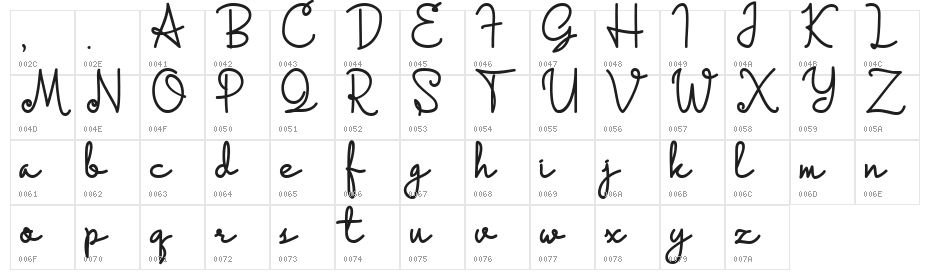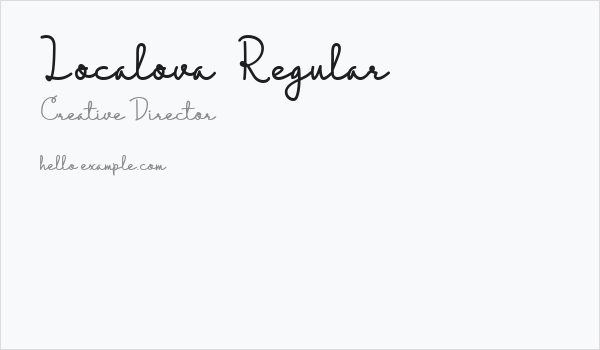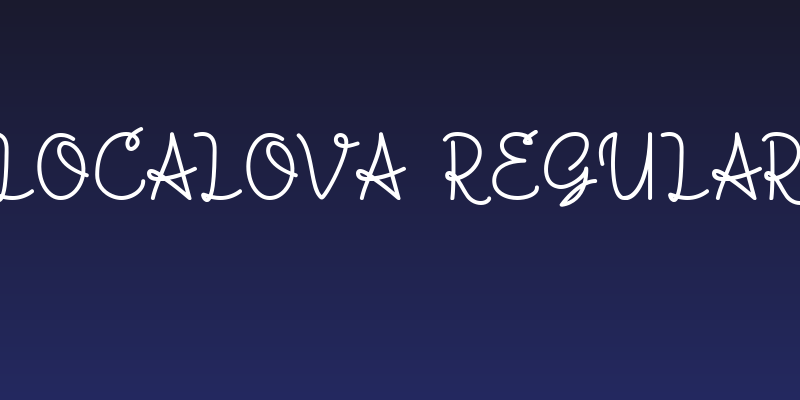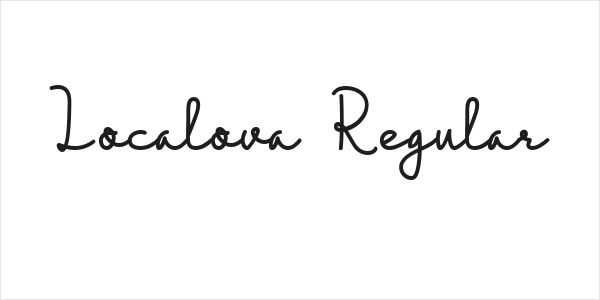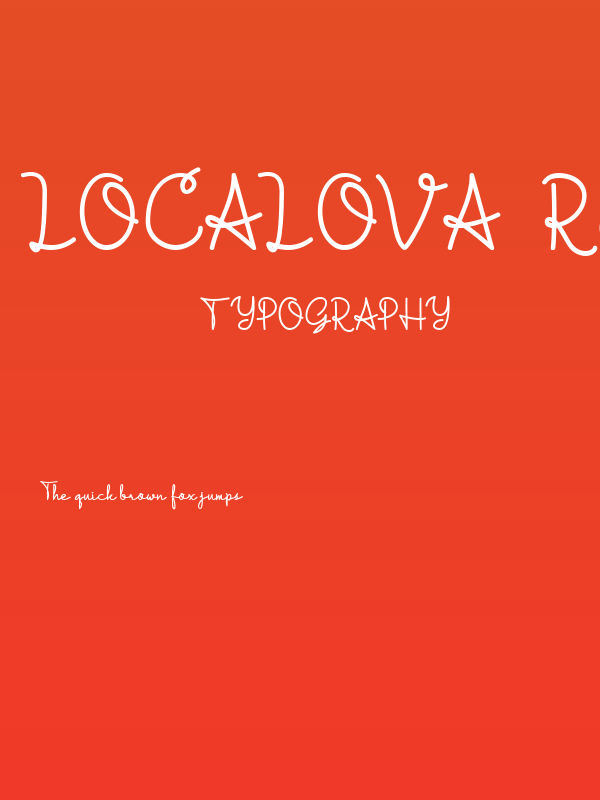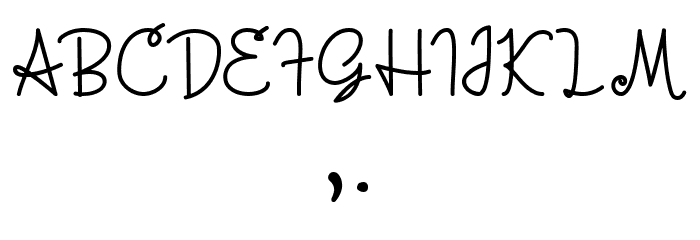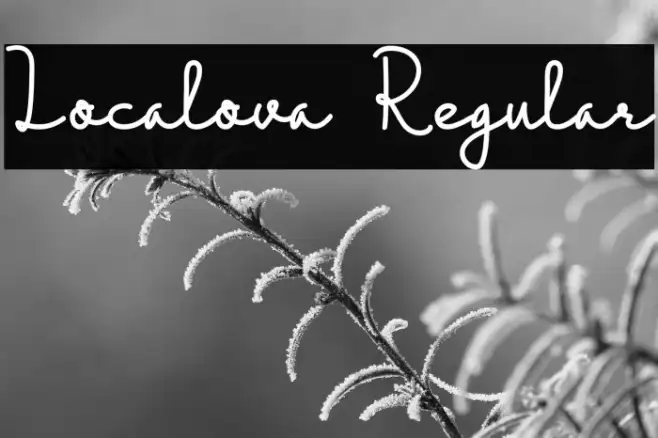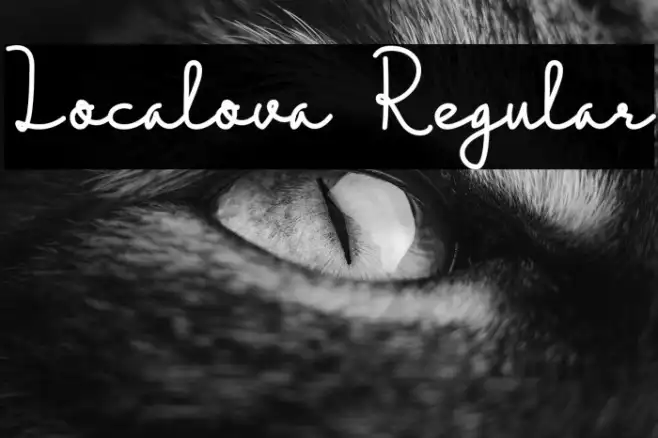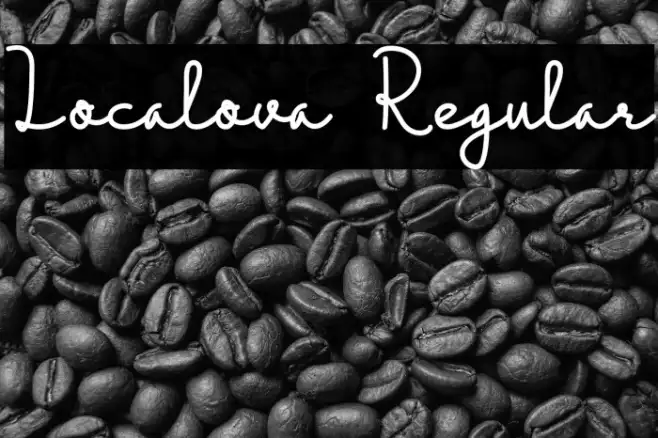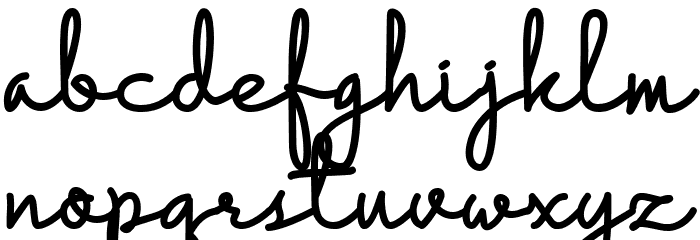
Localova Regular Font
Localova Regular Description
This font features a playful and whimsical design with a handwritten style. The uppercase letters are characterized by their unique loops and curves, giving them a lively and dynamic appearance. The lowercase letters maintain a consistent flow, enhancing the font's casual and approachable feel. The numbers and special characters are crafted with the same playful touch, ensuring a cohesive look across all elements. This font's distinct personality makes it ideal for projects that require a touch of creativity and fun.
| Proposed Projects | Ideal for greeting cards, children's books, playful branding, and creative invitations. |